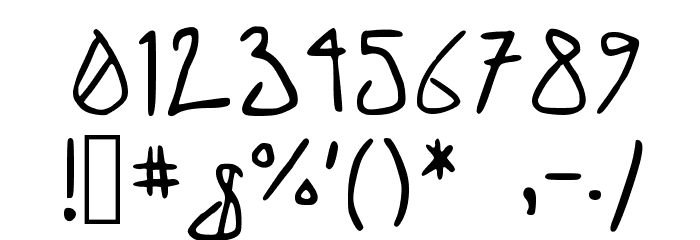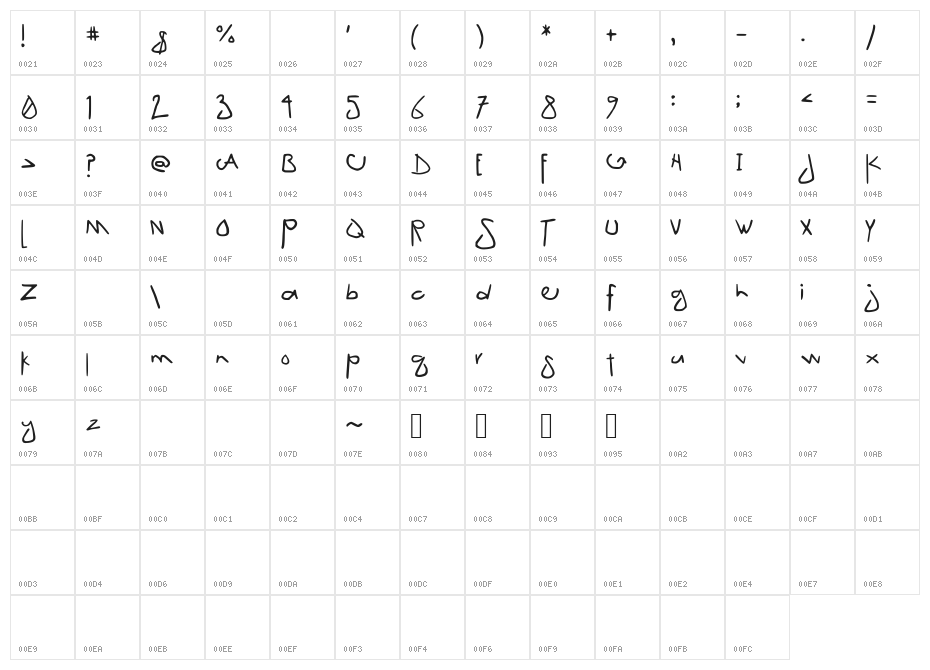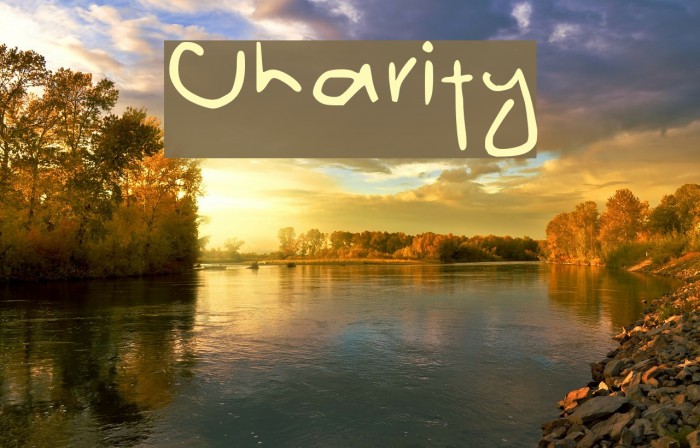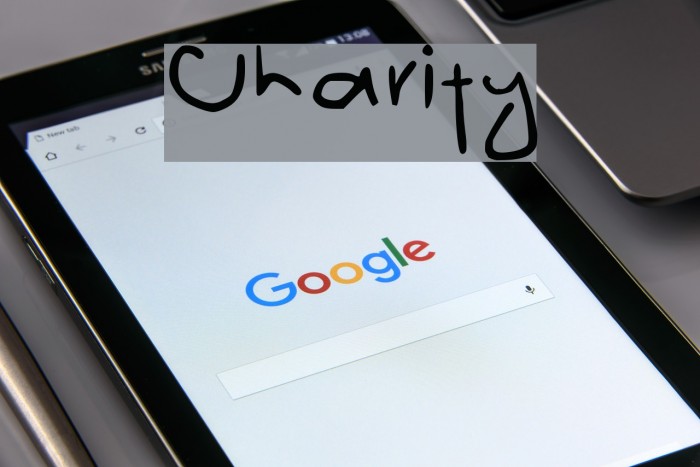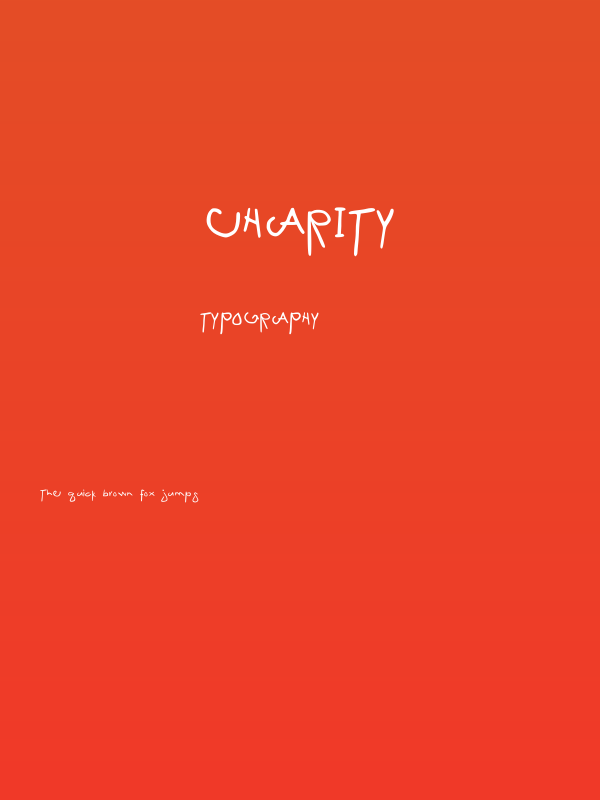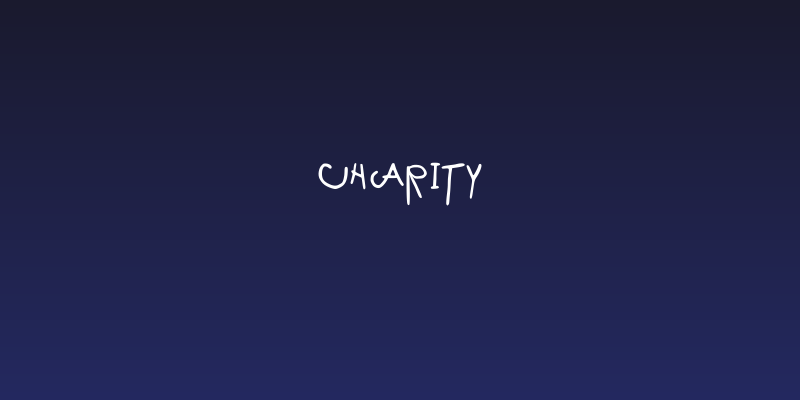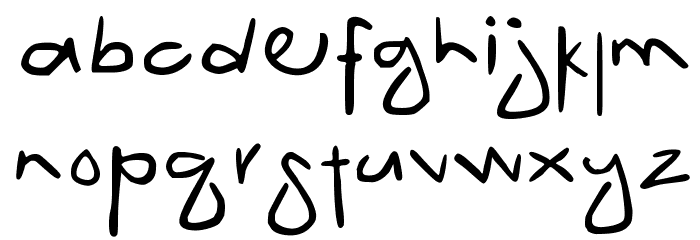
Charity Font
Charity Description
This font exhibits a playful and informal handwritten style, characterized by its uneven strokes and whimsical curves. The letters vary in height and slant, giving it a dynamic and lively appearance. The uppercase letters are bold and prominent, while the lowercase letters maintain a consistent flow, enhancing readability. Numbers and special characters are crafted with the same playful touch, ensuring a cohesive look across all elements. The font's unique personality makes it suitable for creative and casual projects.
| Use Case | Headlines, Logos, Informal text |
| Proposed Projects | Ideal for greeting cards, children's books, playful branding, and casual invitations. |